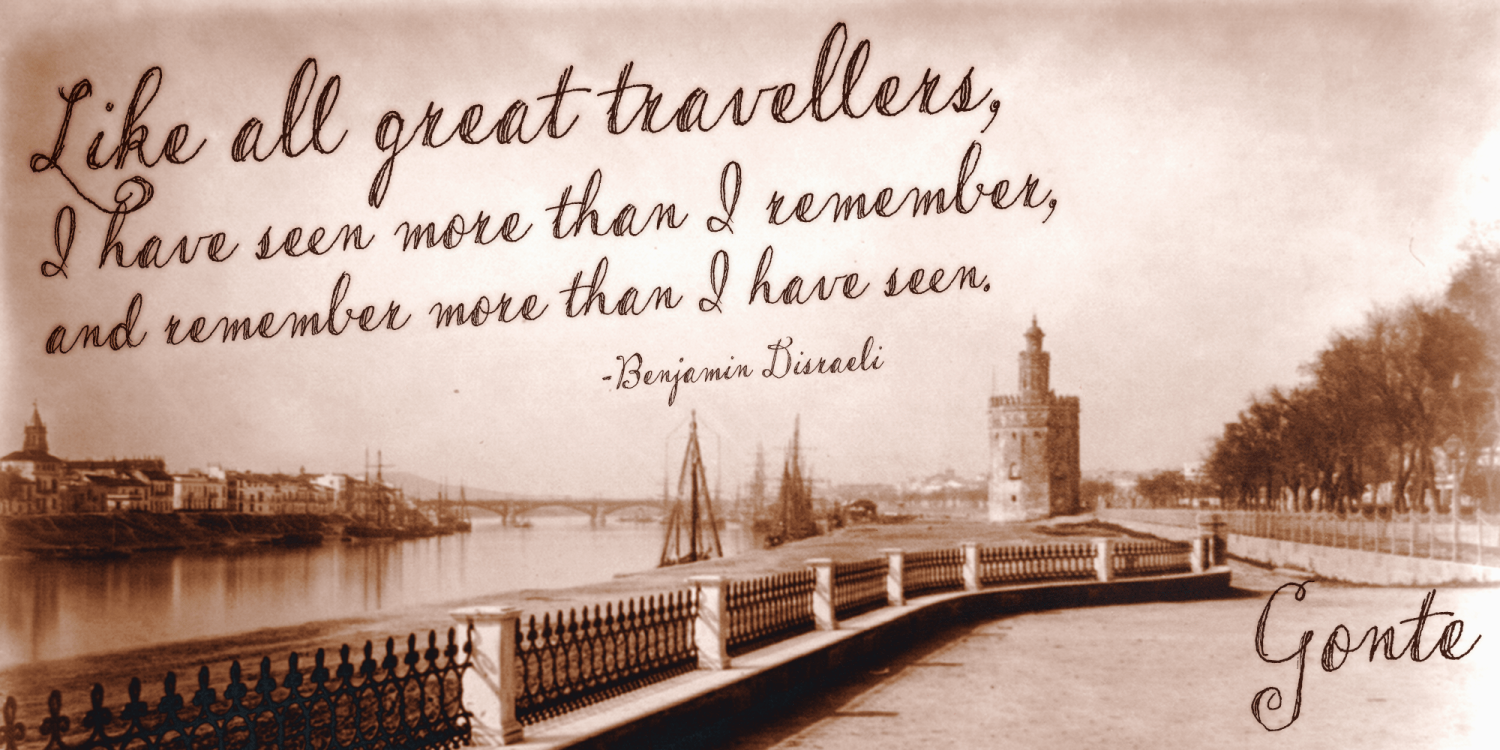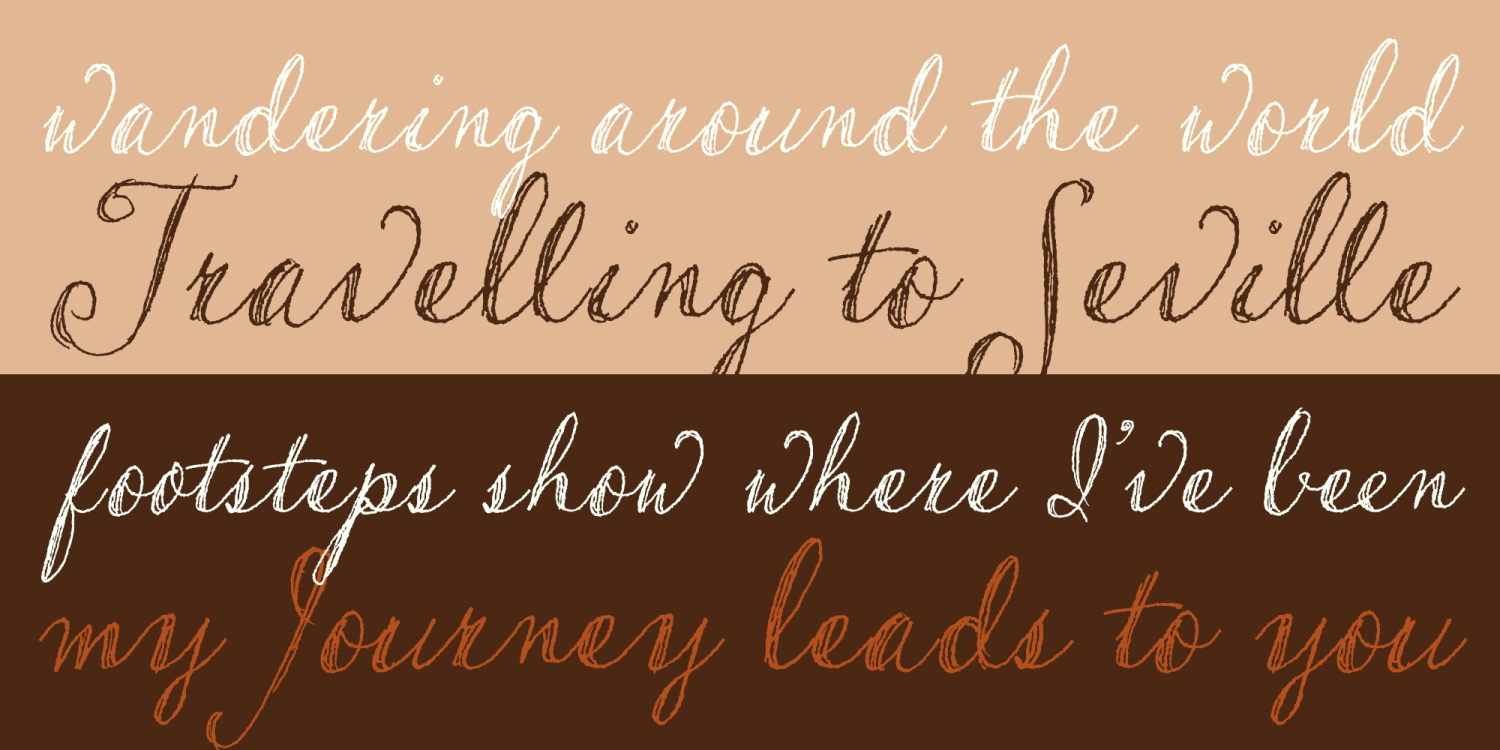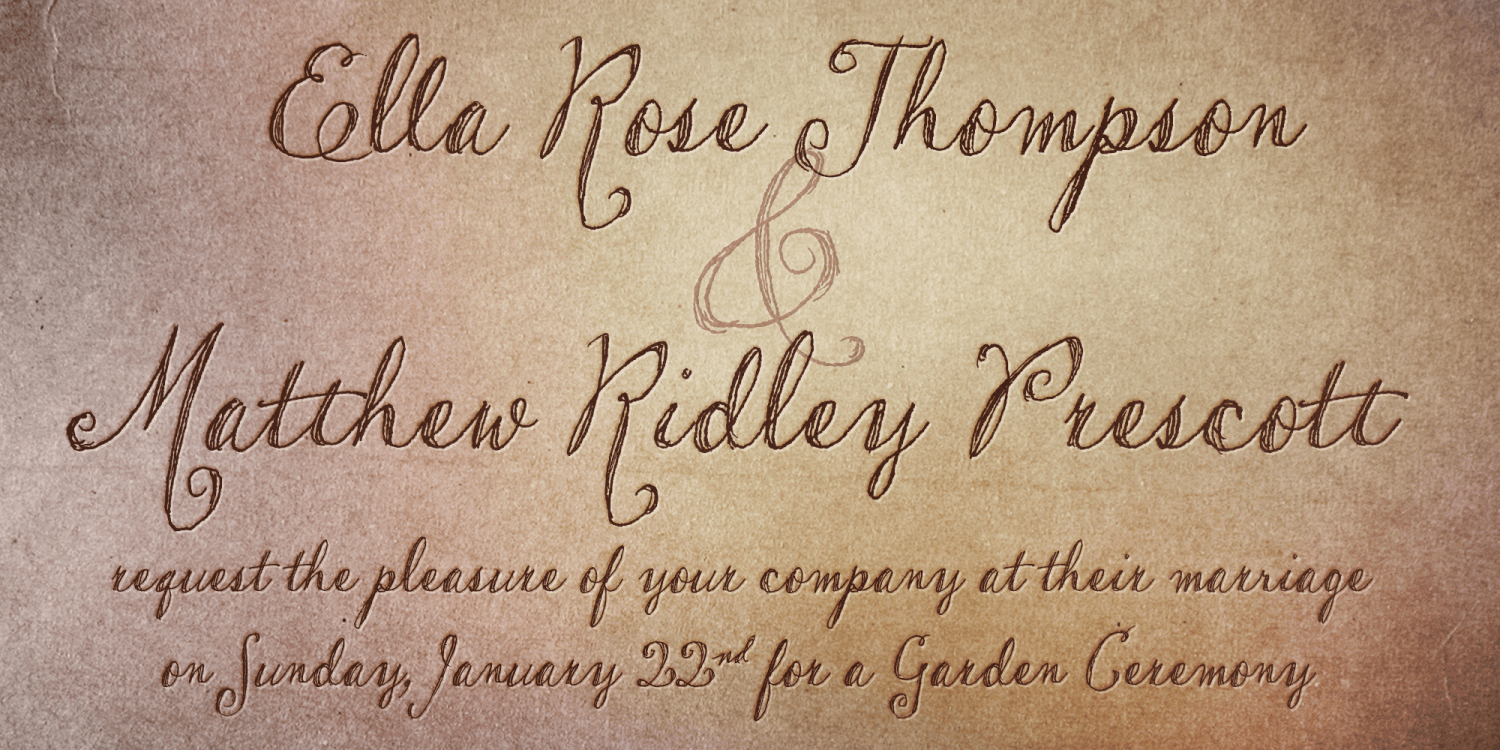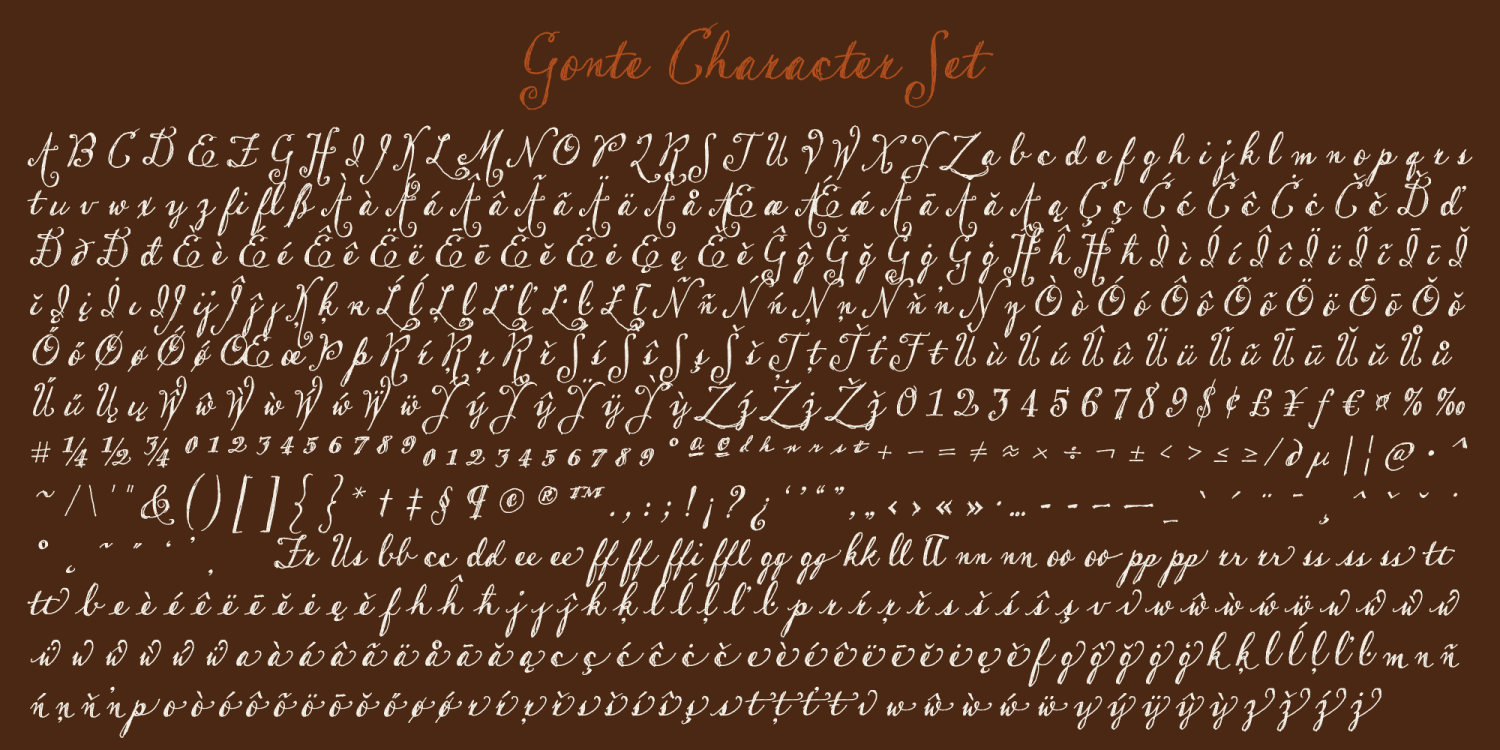
About Gonte
If you are like me, you love to doodle in a sketchbook when traveling abroad to capture the indescribable moments that a camera or video would miss. Years ago, on a trip to Spain, I penned out this fanciful handwritten script and just fell in love with…